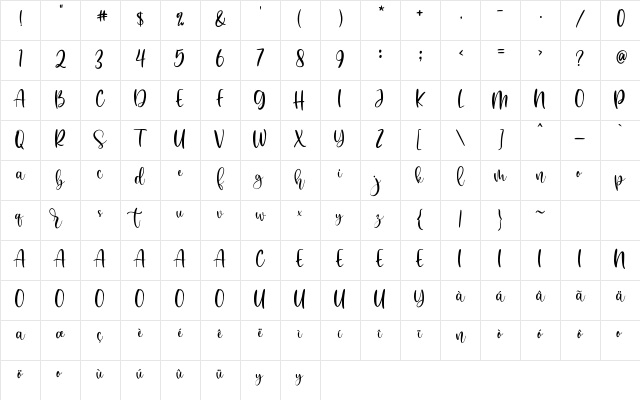
Semperto Regular
Foundry: HansCo
Designer: Burhan Afif
Design Context for Semperto
Semperto is a composed and adaptable typeface that performs quietly and consistently across a wide range of design contexts.